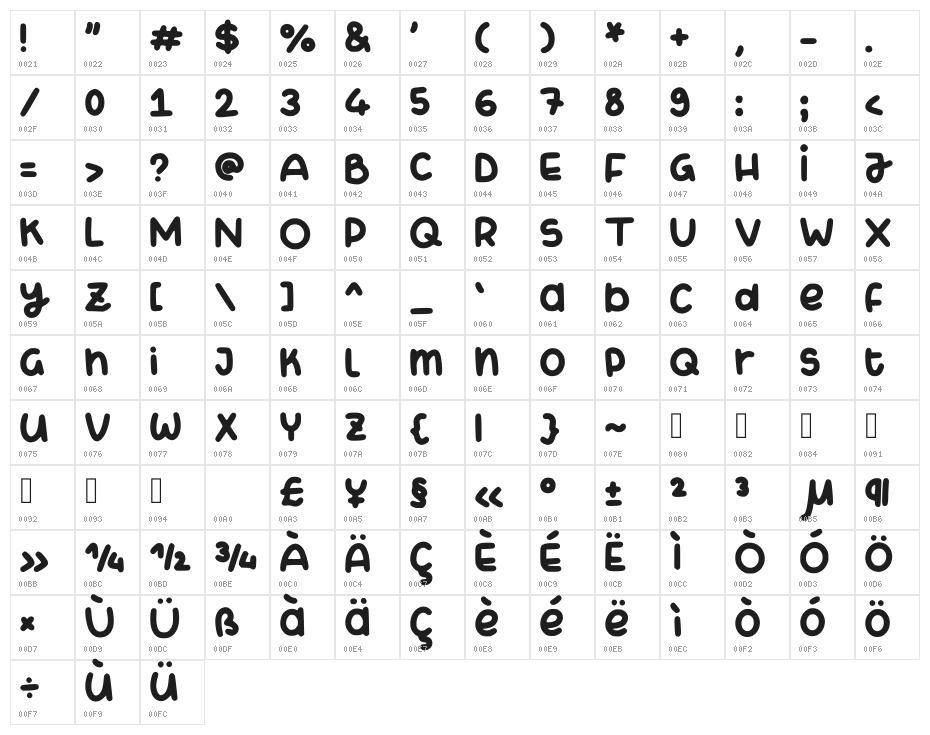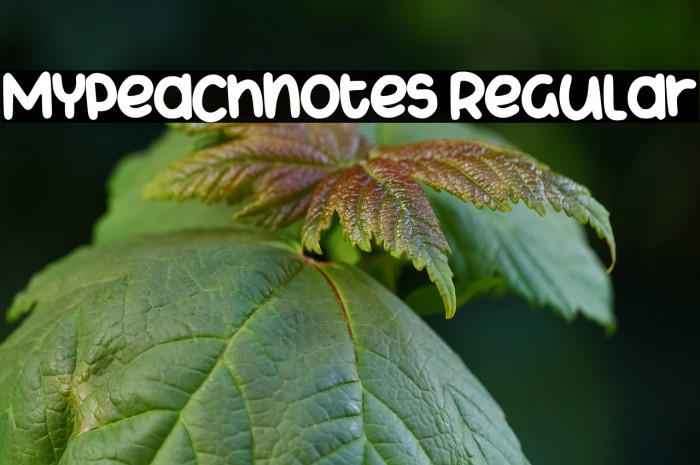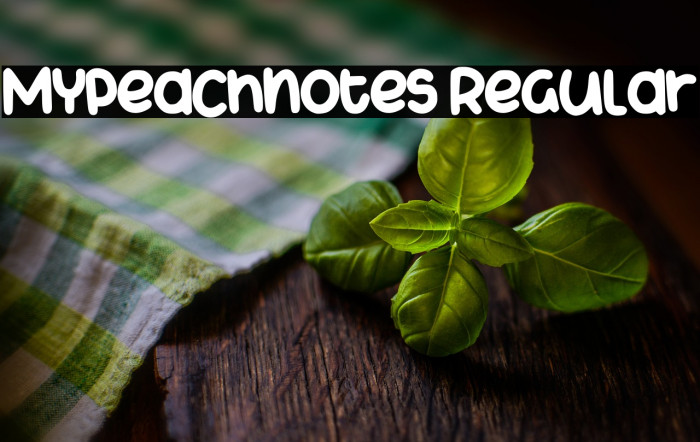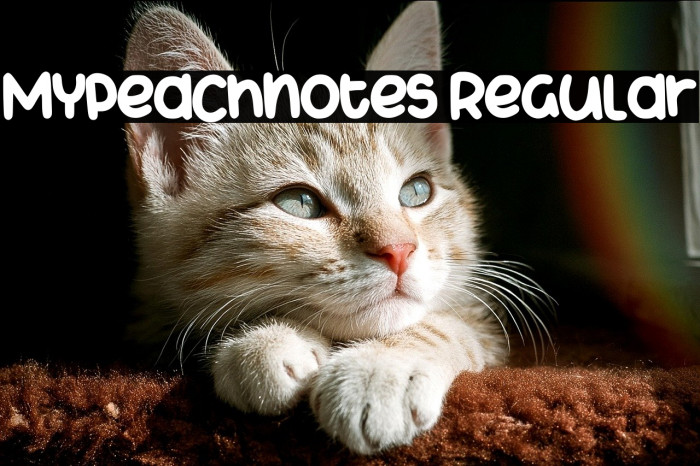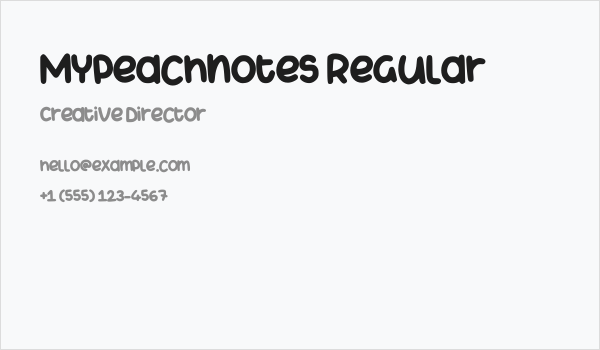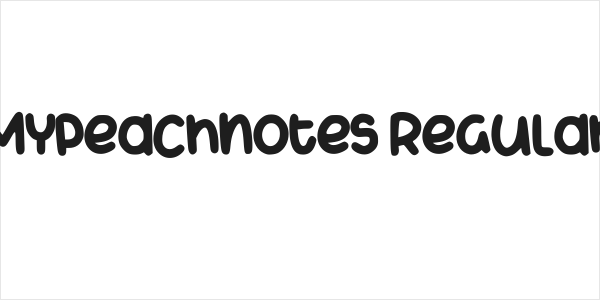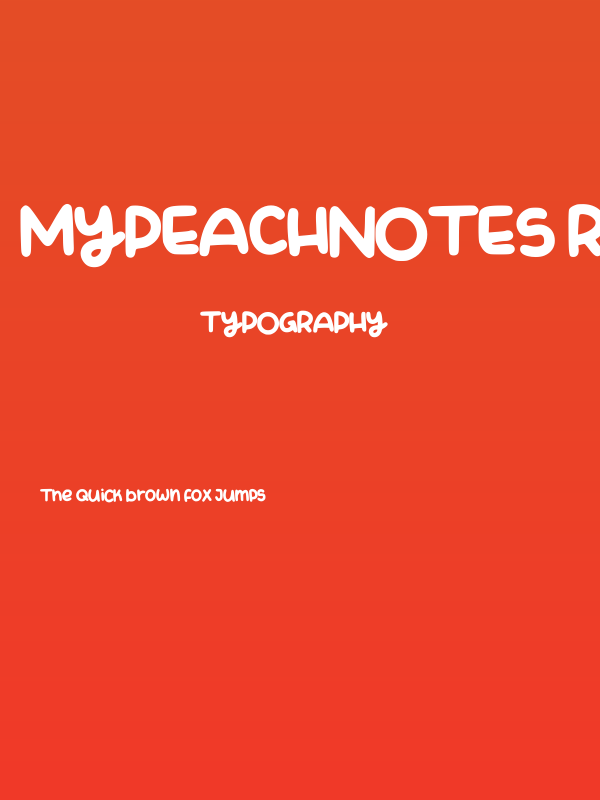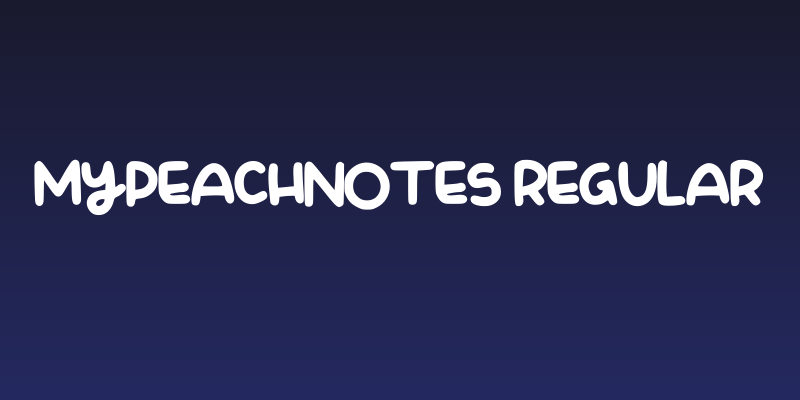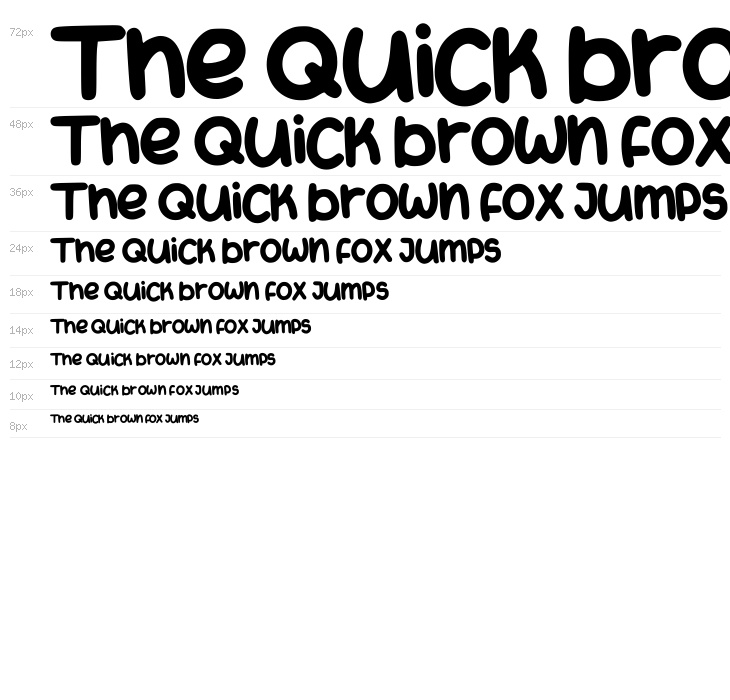
Mypeachnotes Regular Font
This playful and bold font features rounded, thick strokes that give it a friendly and approachable appearance. The characters are slightly irregular, adding a whimsical touch that enhances its charm. The uppercase and lowercase letters maintain a consistent style, with smooth curves and a uniform thickness throughout. The numbers and special characters are designed to match the overall aesthetic, ensuring a cohesive look. This font is ideal for projects that require a fun and informal tone, making it perfect for children's books, playful branding, or creative posters.
| Overall Style | Playful, Whimsical |
| Proposed Projects | Children's books, playful branding, creative posters, informal invitations. |